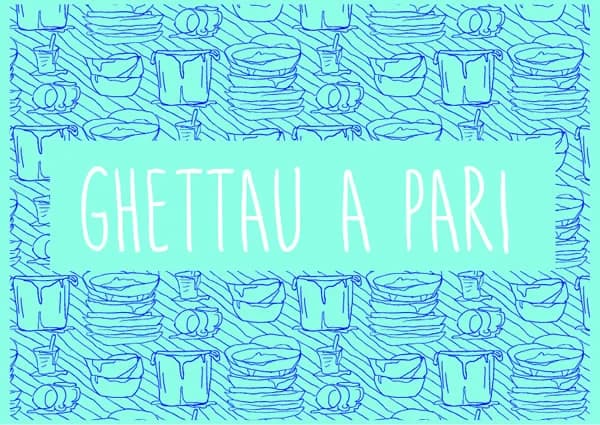
Drucci by Silvia Porcu is a handwritten script that captures the organic, unpolished charm of genuine pen strokes. With its authentic personal touch and deliberately imperfect letterforms, this font excels at bringing real character and human warmth to designs that feel intentional and intimate rather than sterile or mass-produced. The varied line weights and natural irregularities create a visual rhythm that mimics the unpredictability of actual handwriting, making each individual letter feel genuinely alive.
The versatile nature of Drucci makes it particularly well-suited for creative projects where personality and authenticity take center stage. It performs beautifully across wedding invitation suites, custom thank-you card designs, artisan product label packaging, and personalized stationery sets for small businesses. Independent makers, boutique brands, and DIY craft enthusiasts will find Drucci's natural rhythm especially effective for communicating genuine care and attention to detail. The clean letter construction ensures strong readability even at smaller sizes, allowing designers to balance artistic expression with functional clarity without sacrificing either.
Whether applied to handmade market vendor packaging, letterpress studio collateral, or a luxury brand's editorial layouts, Drucci bridges the gap between casual charm and polished execution. Get Drucci on Creative Fabrica and start creating designs that feel genuinely personal.
Drucci Font is a script font that shines as a display or heading face. Pair it with a clean sans-serif or serif font for body text β the contrast creates a clear hierarchy while the two styles stay balanced and easy to read.
Drucci Font
by Silvia Porcu